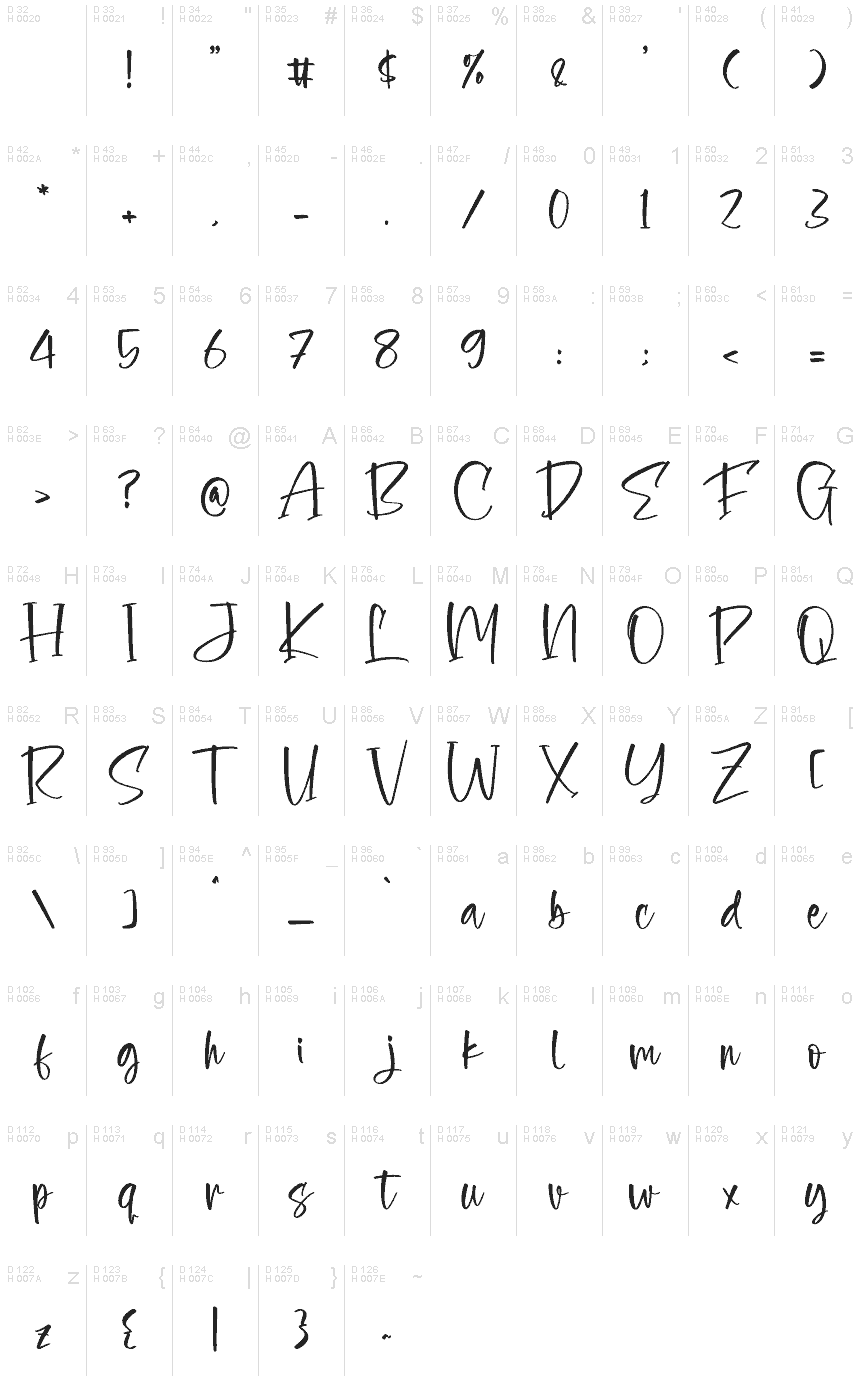
Frenchy Glover
Frenchy Glover font by Letterena Studios is a handwritten typeface that combines casual elegance with an informal sophistication. Its modern script feel and friendly charm make it a versatile addition to various design projects looking for that personal touch.